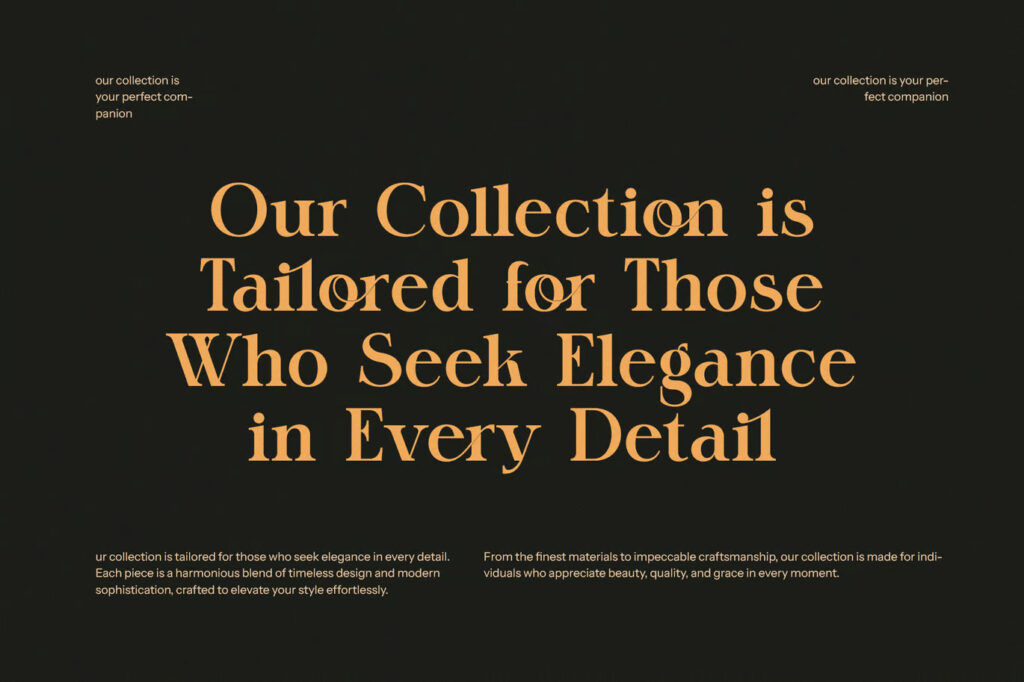
Gidora is a serif with medium contrast, rounded joins and ball ends on letters such as the r and a. On the cover it is set in cream over a painting of a woman among red lilies, called a new elegant serif font.
Our collection is tailored for those who seek elegance in every detail, in gold on black over four lines, is the kind of text it was made for. The character sheet shows capitals, lowercase, numbers and two rows of ligatures, such as ib, th, il, va, eb and op, which join letters in an unusual way.
Best uses for Gidora
- Luxury product labels
- Restaurant menus
- Book jackets
- Editorial headings
- Branding for jewellers
Pair Gidora with Work Sans for body text. Cormorant Garamond keeps a soft serif mood. For a script, try Pinyon Script.
Gidora Serif Font